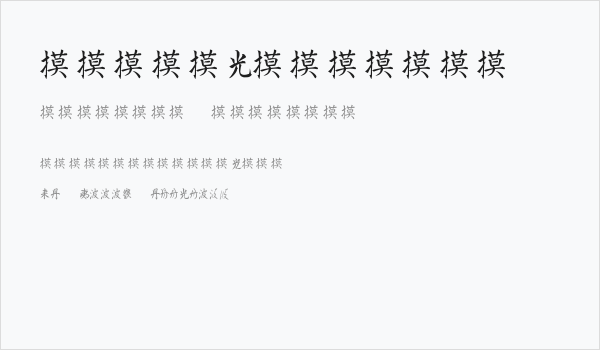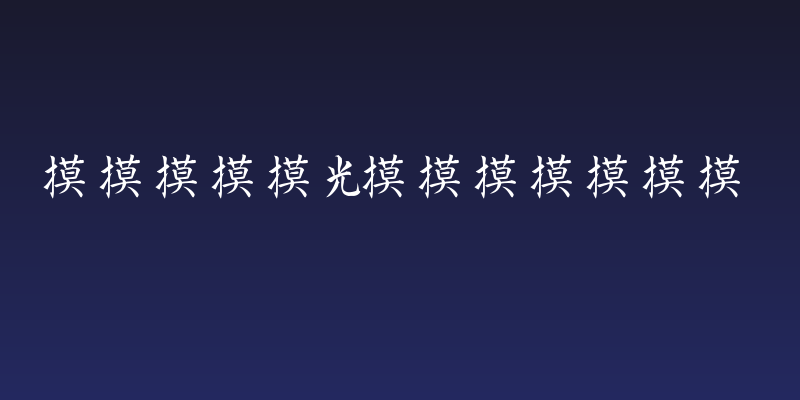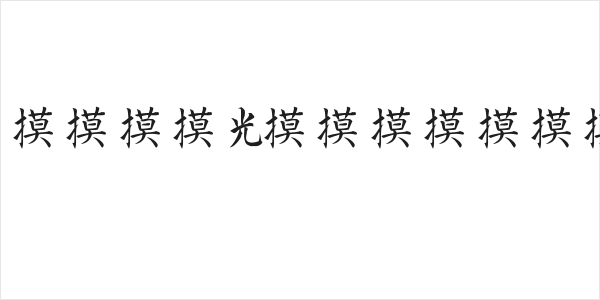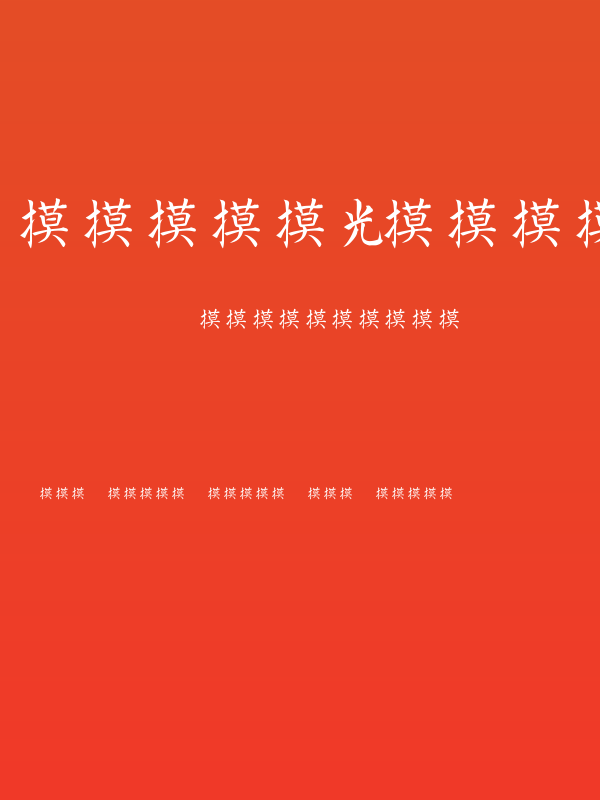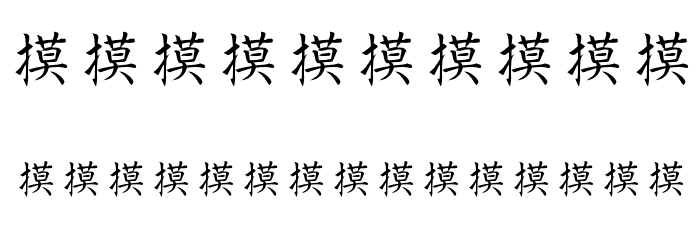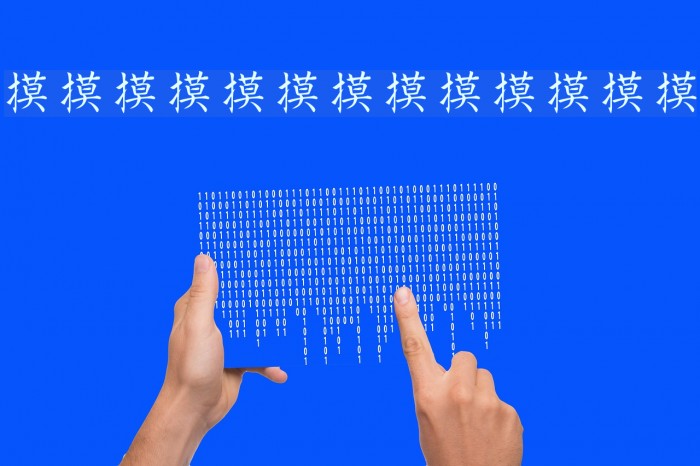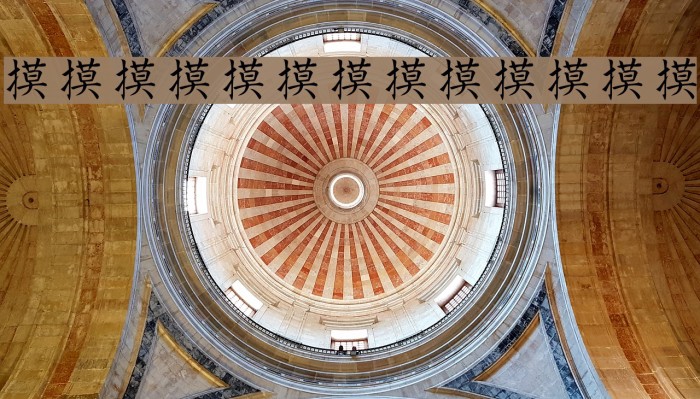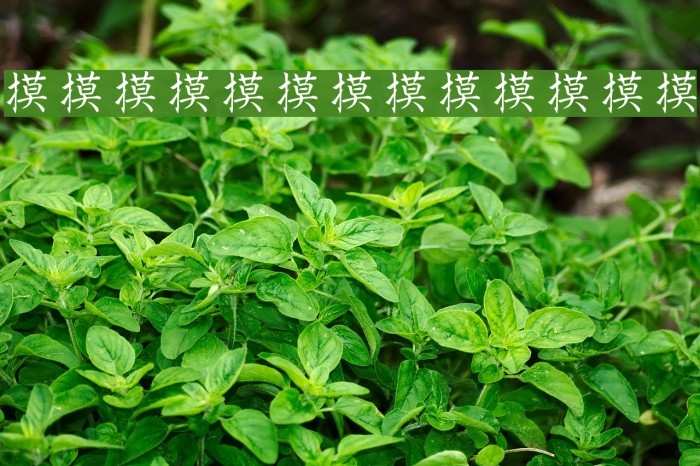
Kanji-Special Font
Kanji-Special Description
This font features a traditional and elegant style, reminiscent of classic Japanese calligraphy. The characters are intricately designed with a balance of thick and thin strokes, giving a sense of fluidity and grace. Each character is meticulously crafted, showcasing a high level of detail and artistry. The font captures the essence of traditional Japanese aesthetics, making it suitable for projects that require a touch of cultural authenticity and sophistication. The overall appearance is both refined and artistic, making it ideal for formal and creative applications.
| Overall Style | Classic |
| Use Case | Logos, Invitations, Art projects |
| Proposed Projects | Ideal for cultural projects, art exhibitions, traditional event invitations, and branding that requires a touch of Japanese elegance. |